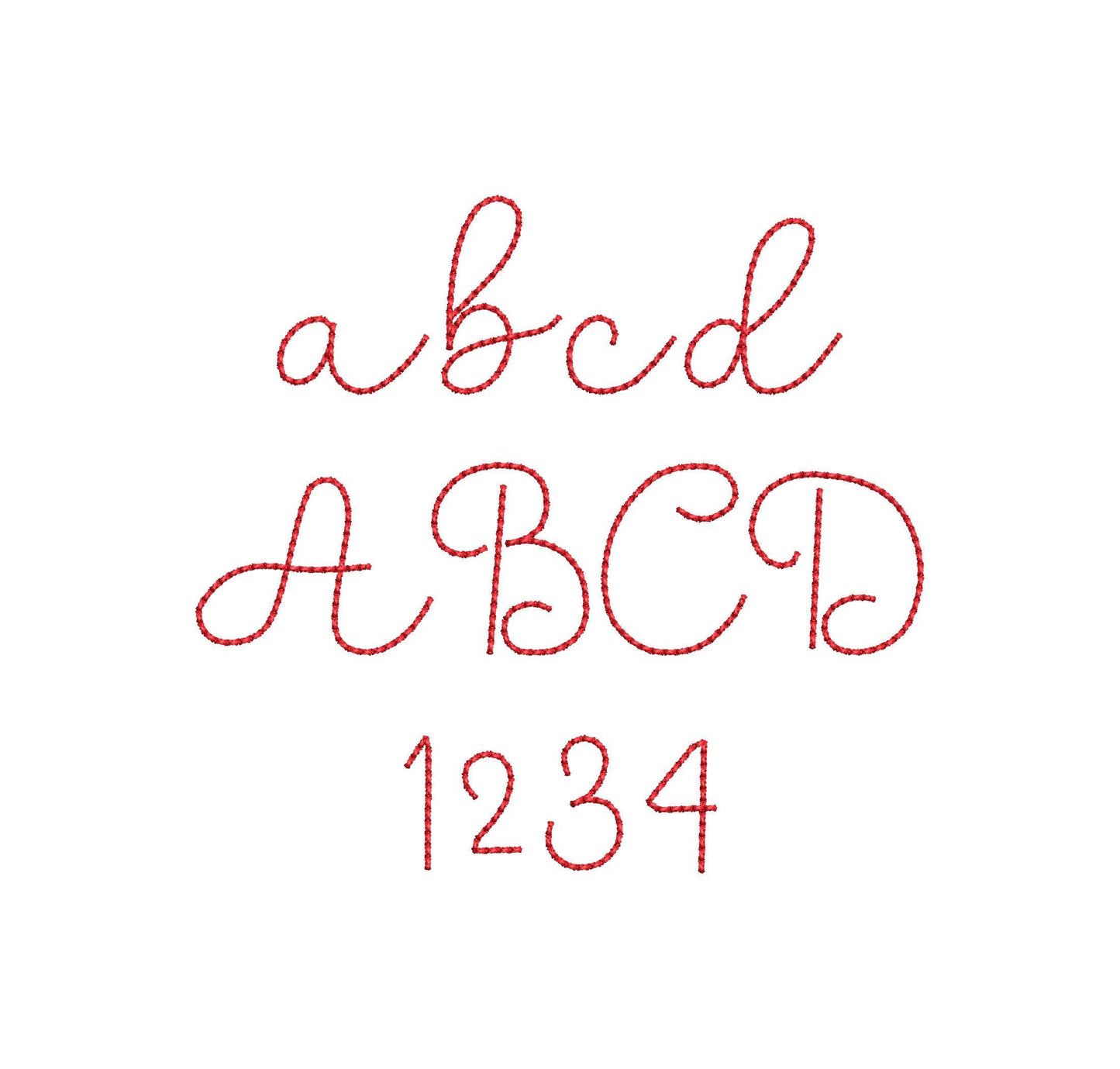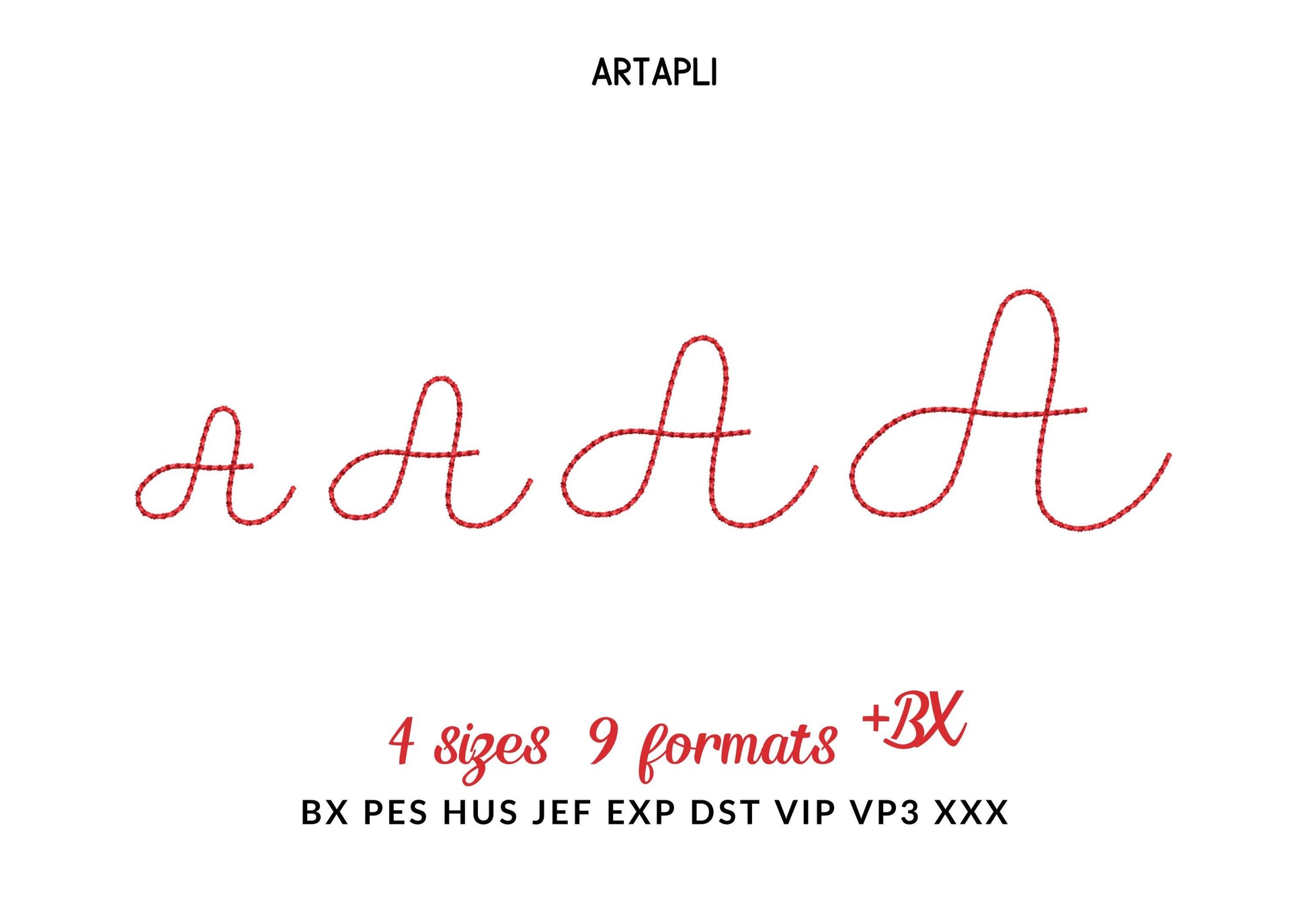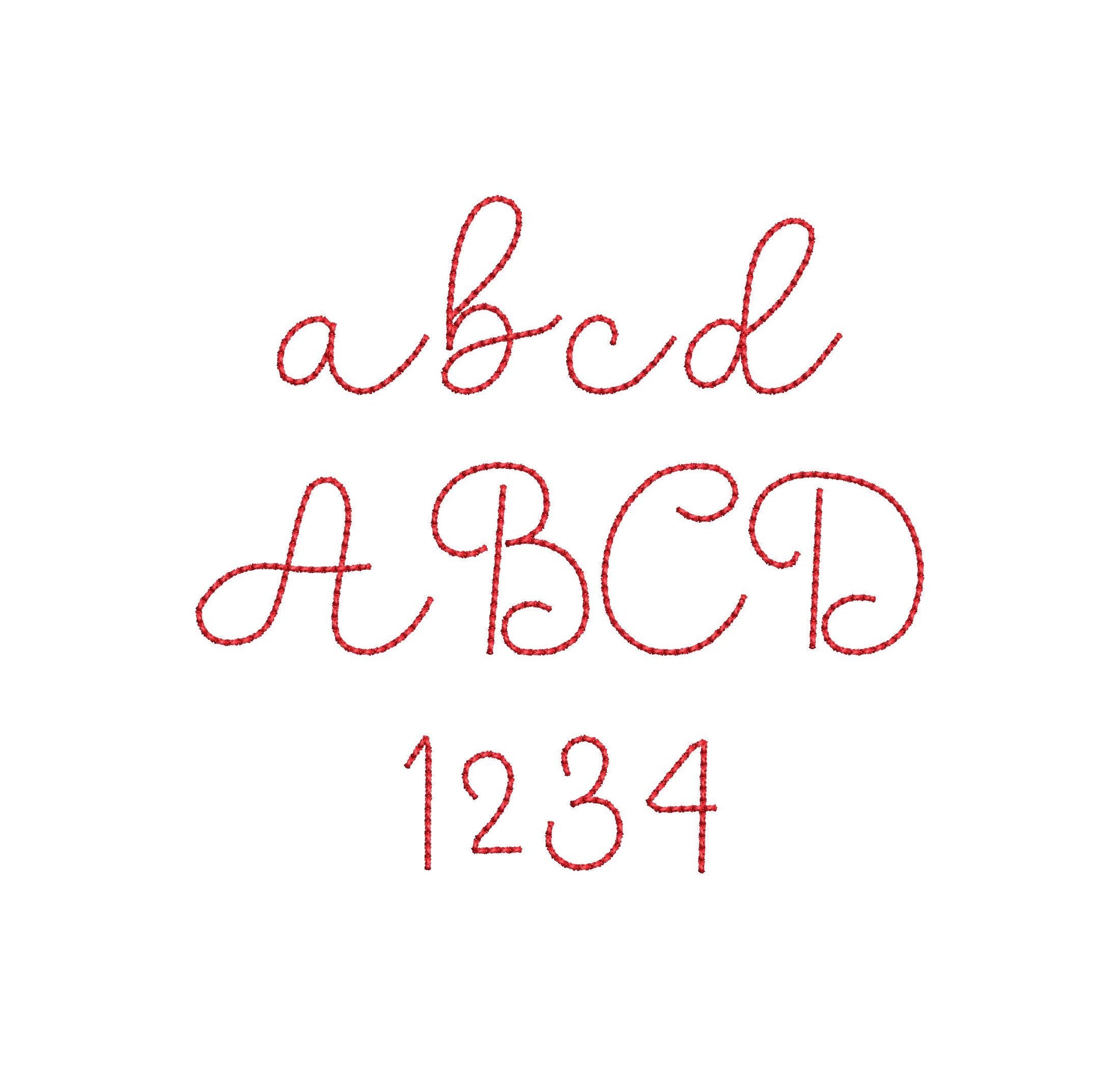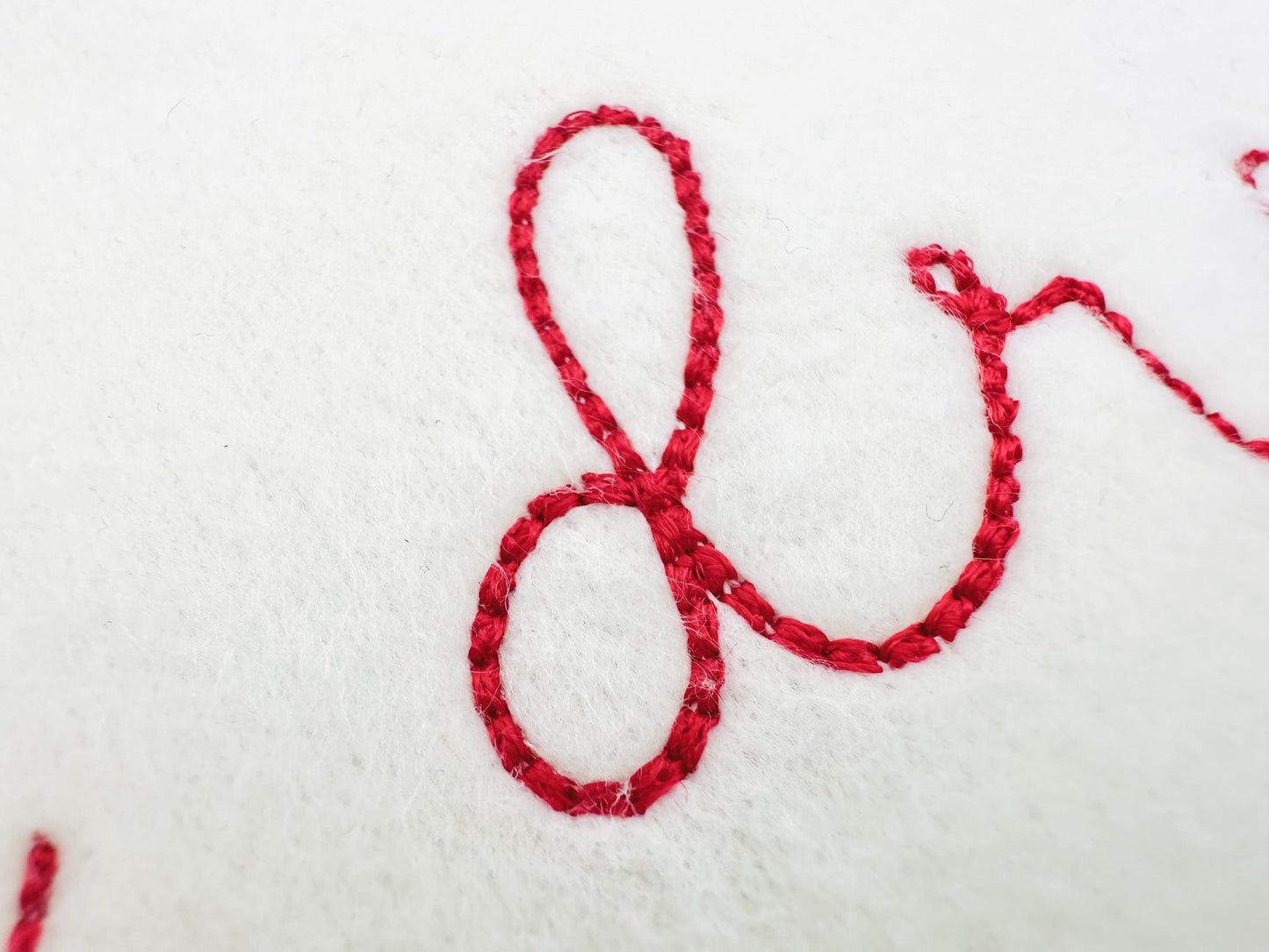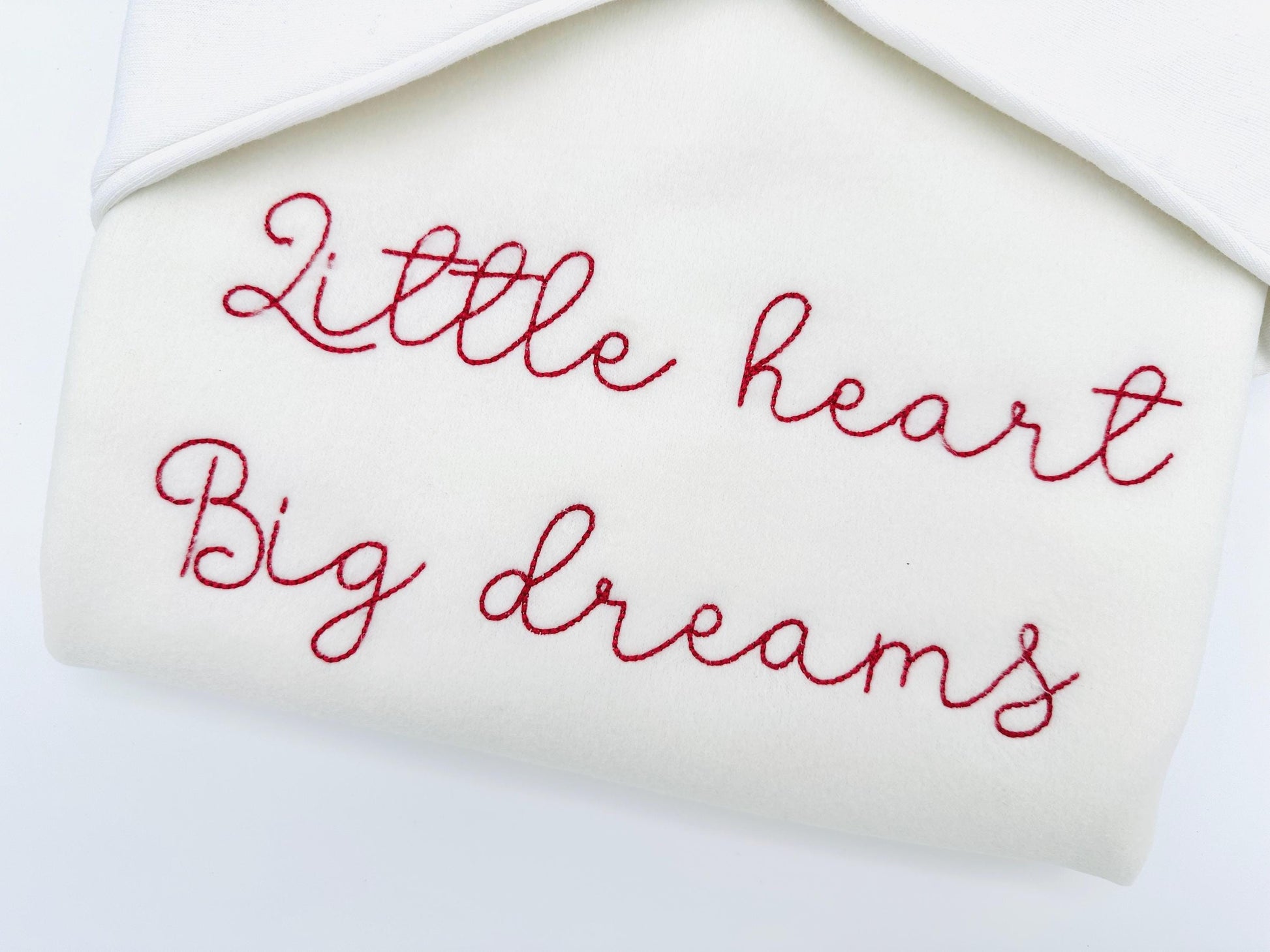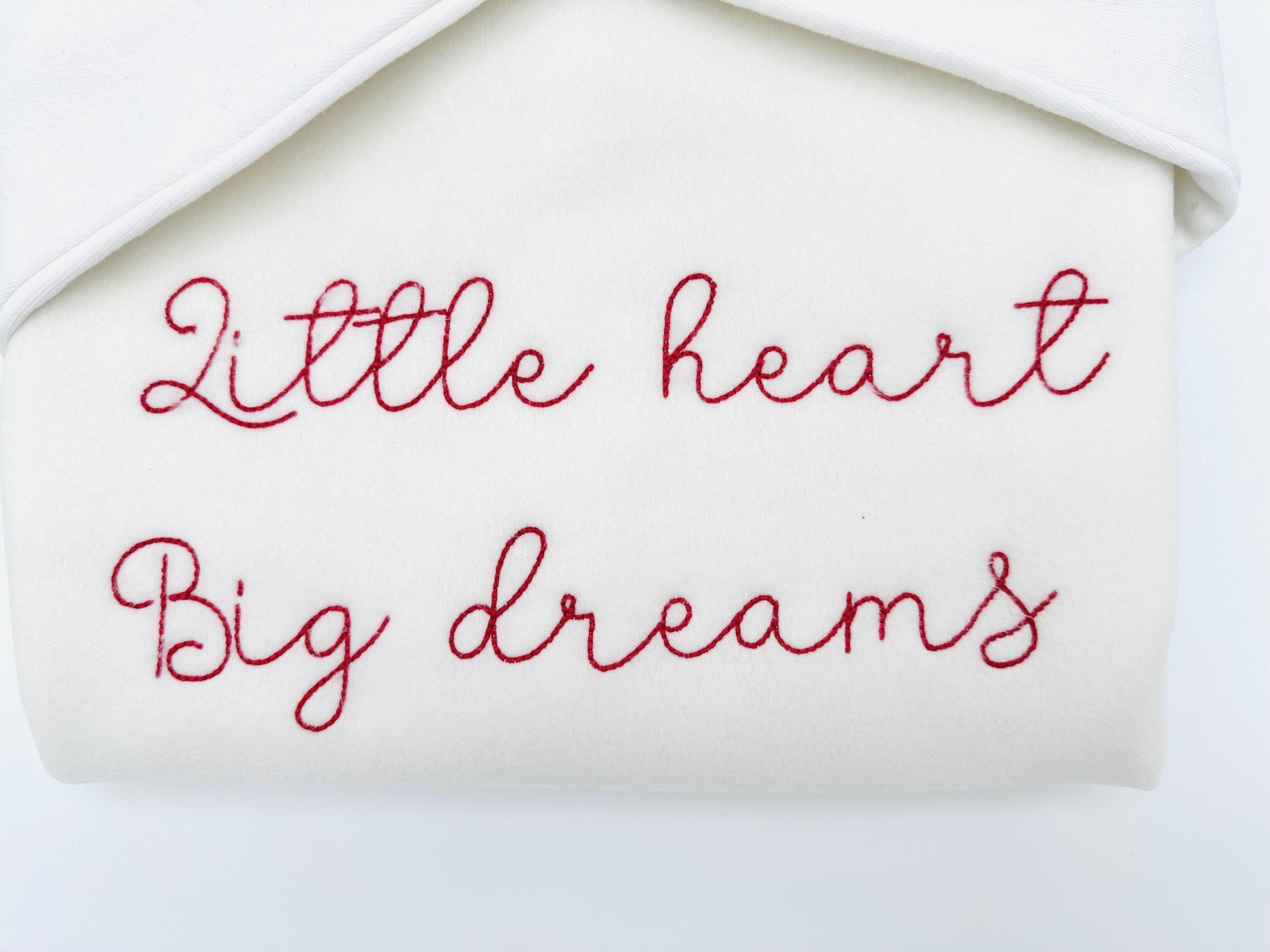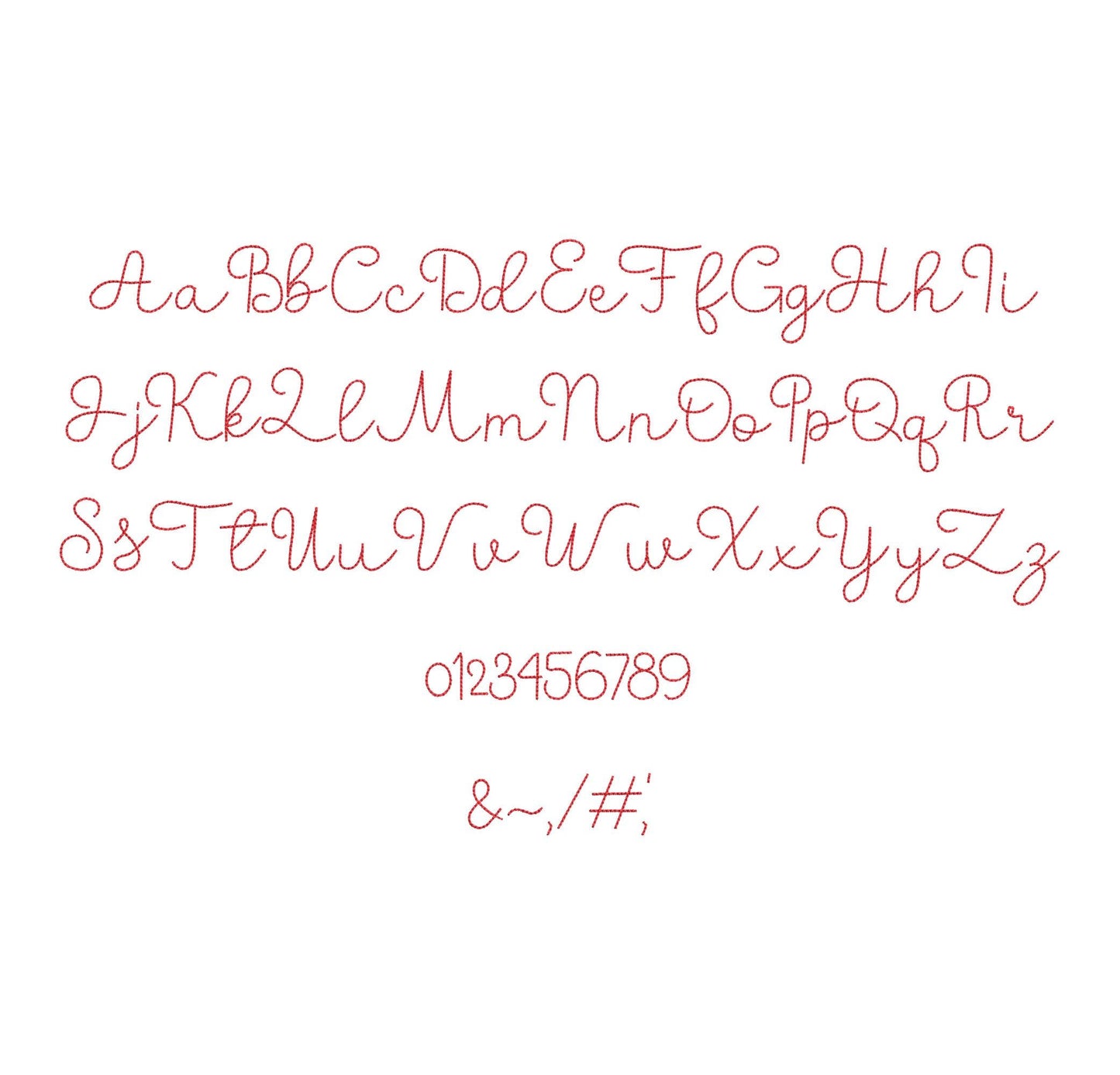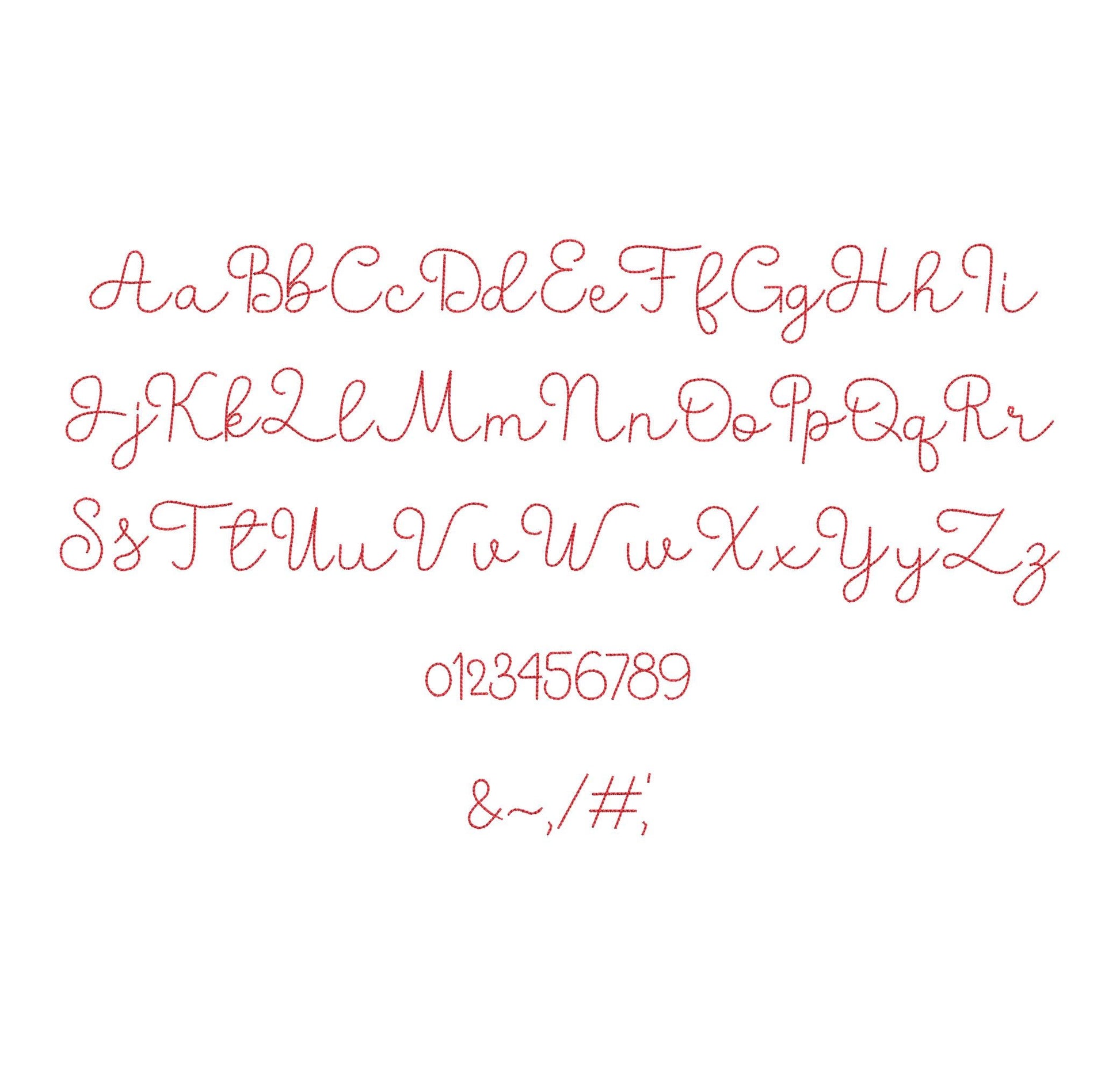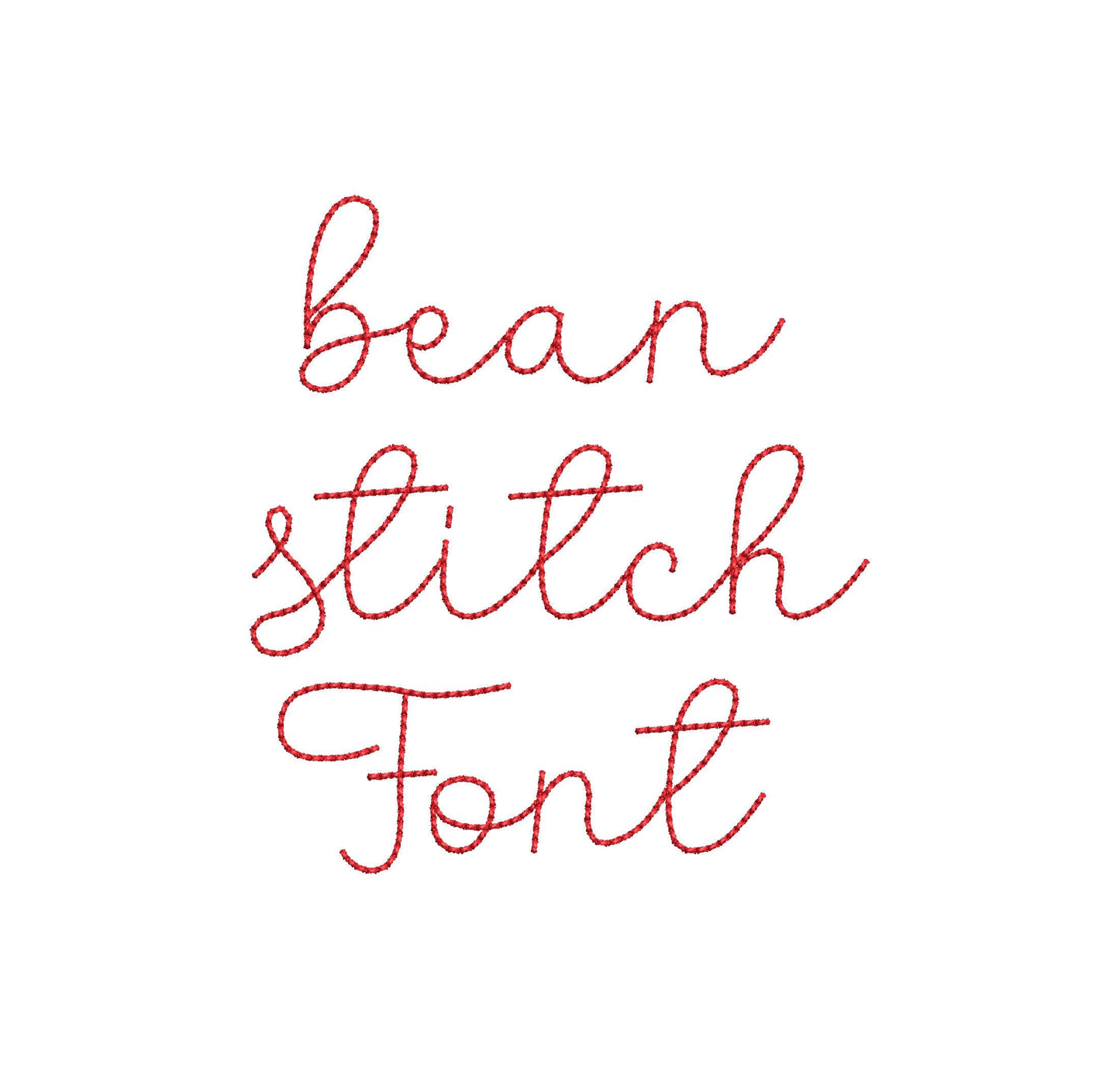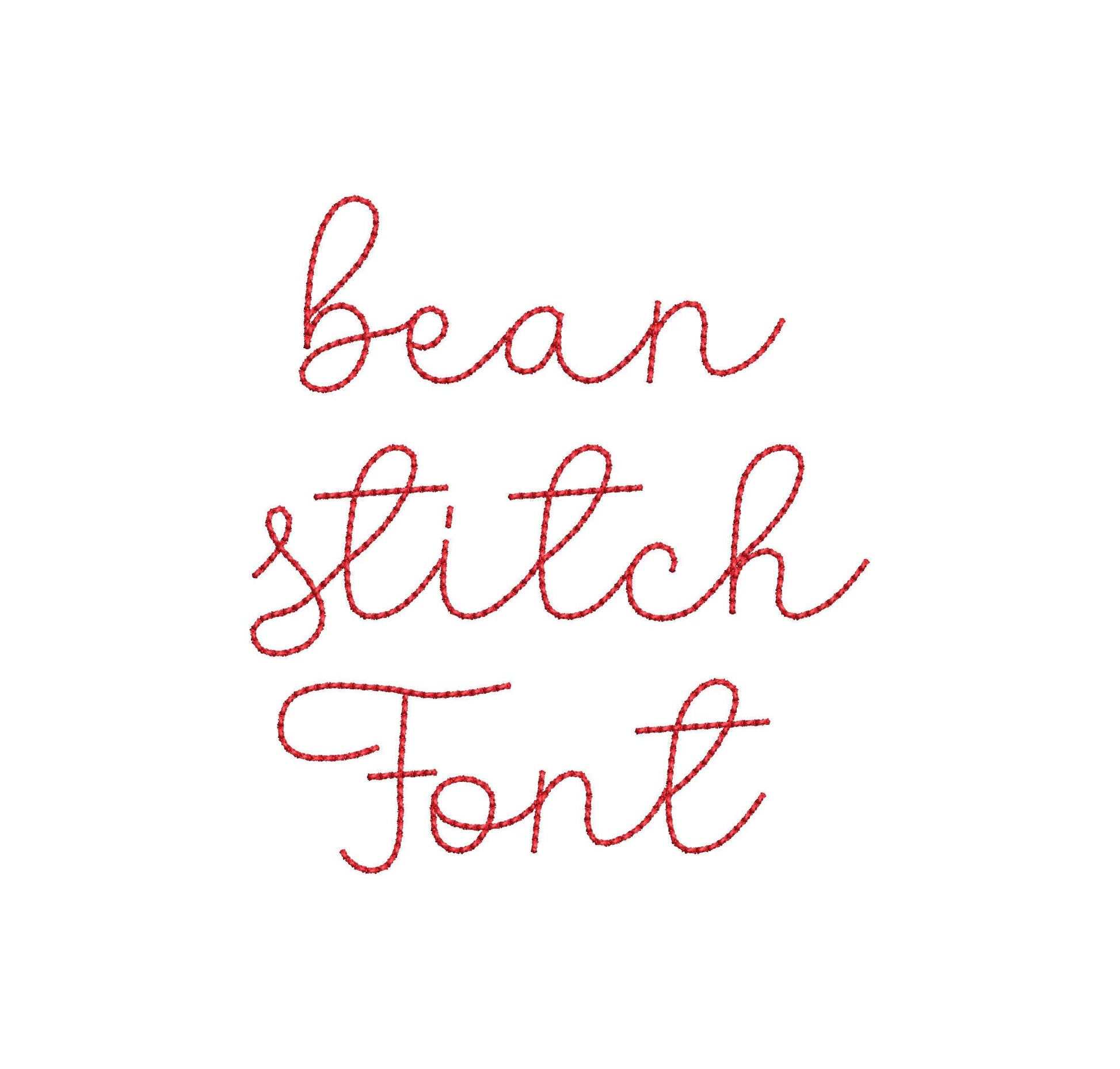
Handwritten Font Bunny Bean
Or click to open the linkA handwritten script font in a light bean stitch. Sweet for baby and kids' names, monograms and small gifts.
The letters come in four sizes: 1, 1.2, 1.5 and 1.9 inches. A simple bean stitch line keeps the letters light and soft. Includes uppercase and lowercase letters A to Z, numbers 0 to 9 and punctuation.
- Bean stitch handwritten script font
- 4 sizes: 1, 1.2, 1.5 and 1.9 in